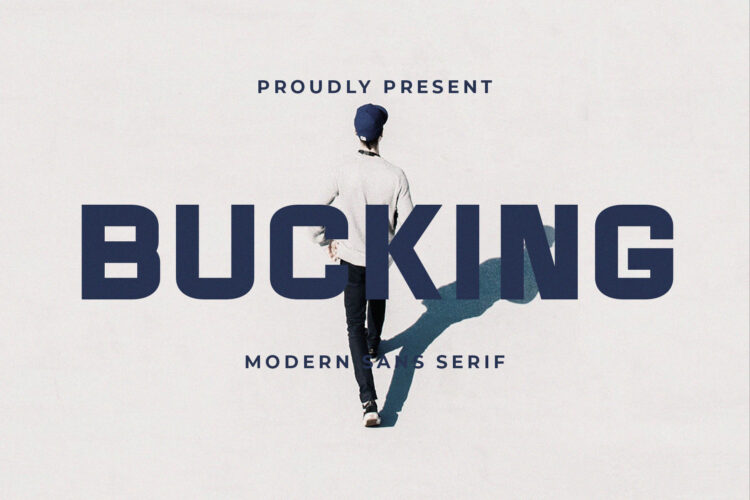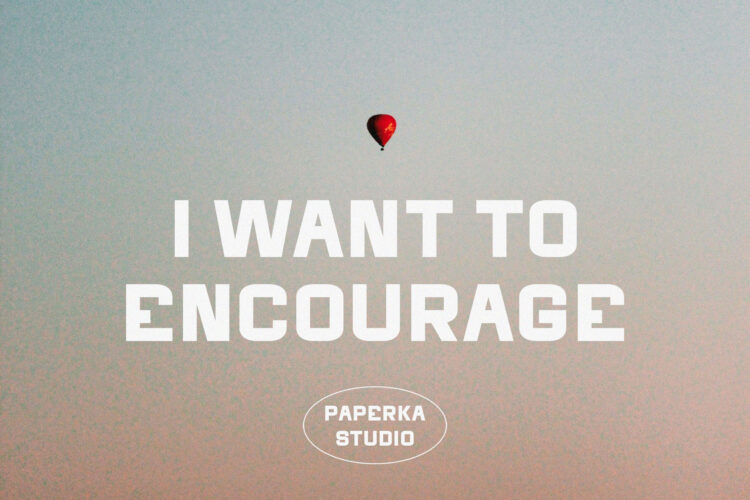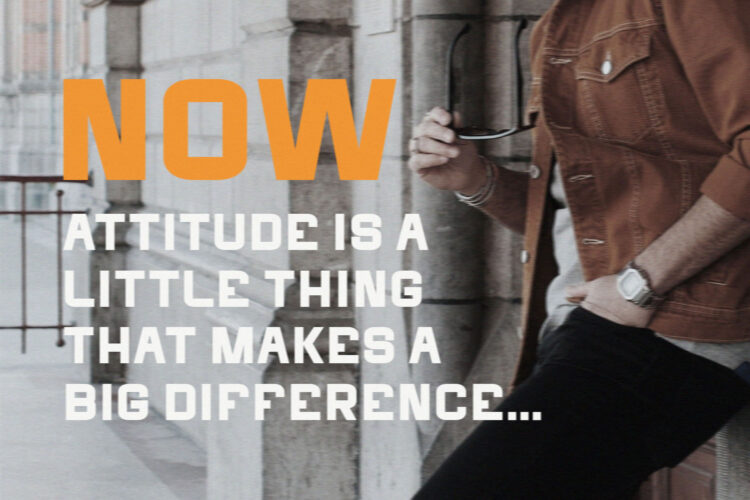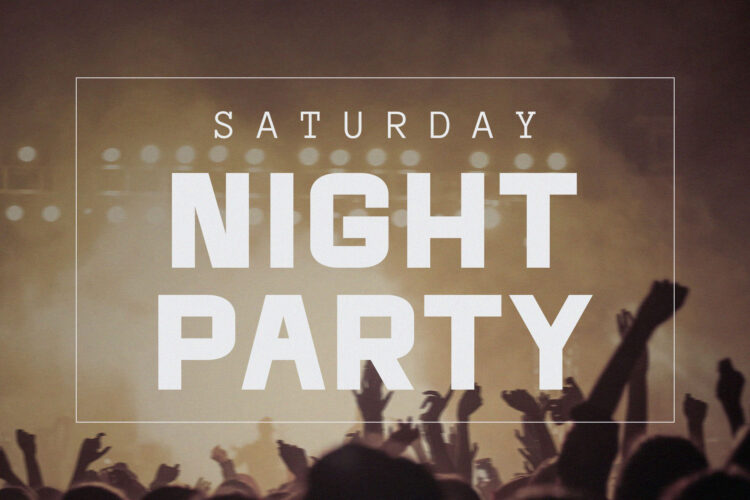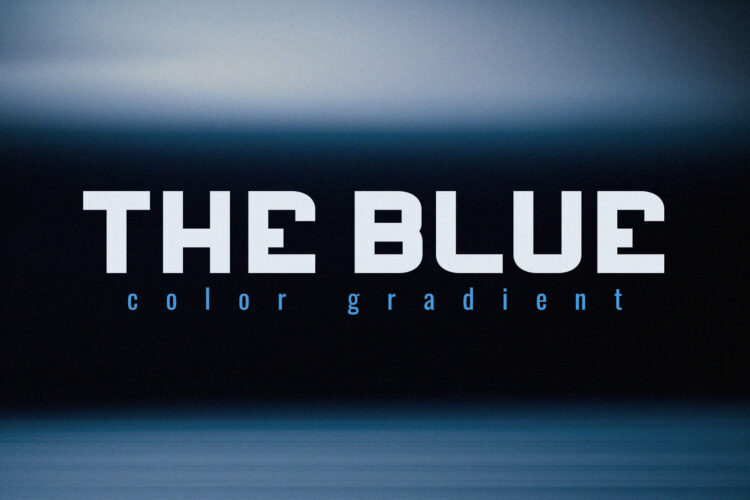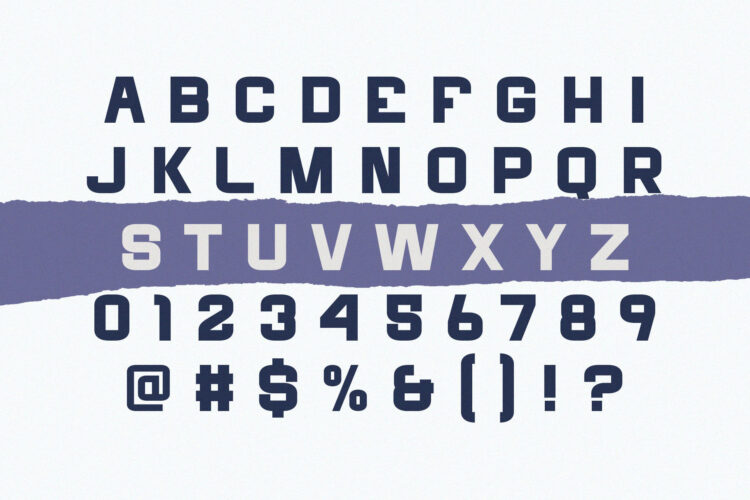
Introducing Bucking Modern Sans Serif.
Bucking is a modern typeface and futuristic, best used as a display for headings, logos, branding, magazines, product packaging and invitations. Bucking come with clean lines and smooth curves give any project an extra touch of class.